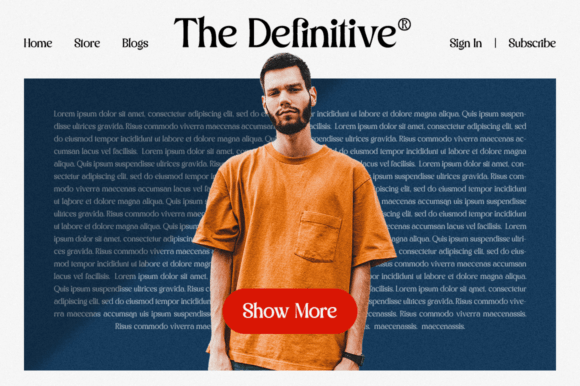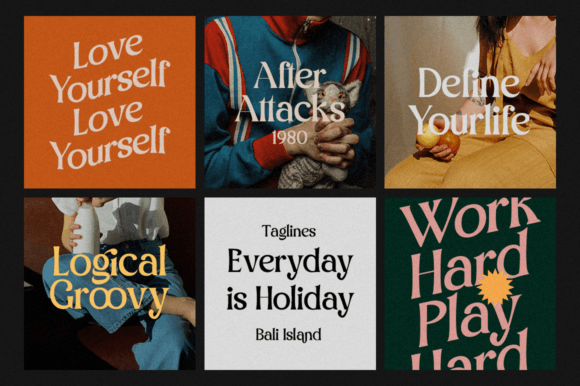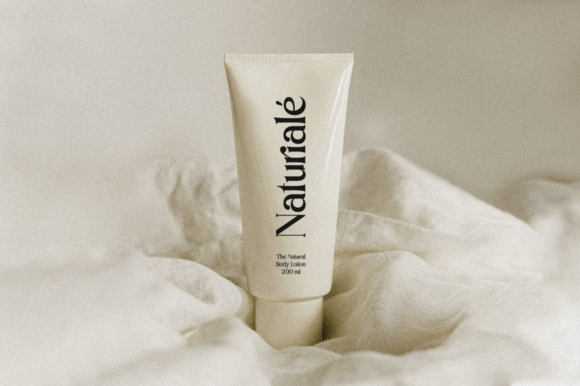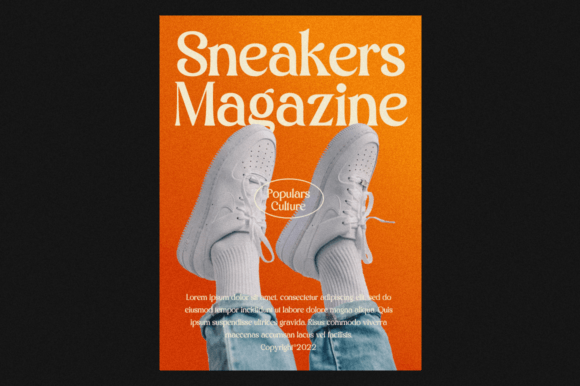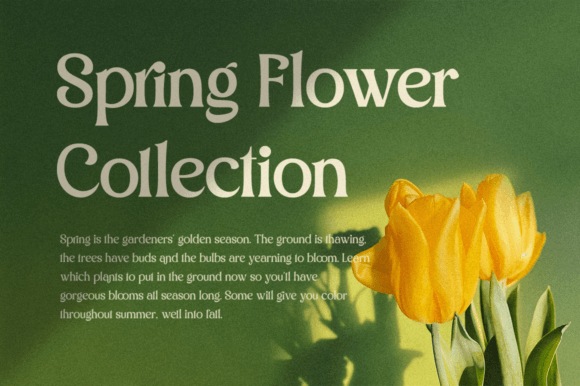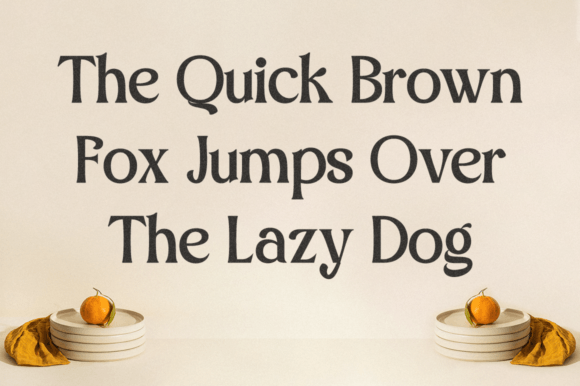
Introducing Argillites Font: The Perfect Blend of Boldness and Elegance
Are you tired of using the same old fonts in your designs? Look no further than Argillites Font, a bold serif font that is sure to become a true favorite among designers and crafters alike. With its casual charm and down-to-earth feel, Argillites is the perfect choice for anyone looking to add a touch of sophistication and versatility to their work.
The Story Behind Argillites Font
Argillites Font is a carefully handcrafted font that is designed to be both beautiful and functional. Its creator spent countless hours perfecting the font, ensuring that every detail, from the bold serifs to the elegant curves, was just right. The result is a font that is not only visually stunning but also incredibly readable, making it perfect for use in a wide range of applications, from body text to headings and titles.
What Makes Argillites Font So Special?
So, what sets Argillites Font apart from other fonts on the market? For starters, its bold serif design gives it a level of sophistication and elegance that is hard to find in other fonts. At the same time, its casual charm makes it feel approachable and down-to-earth, making it perfect for use in designs that need to feel friendly and inviting.
Key Features of Argillites Font
- Bold Serif Design: Argillites Font features a bold serif design that gives it a level of sophistication and elegance.
- Handcrafted: The font was carefully handcrafted to ensure that every detail is perfect.
- Readability: Argillites Font is incredibly readable, making it perfect for use in body text.
- Versatility: The font is versatile enough to be used in a wide range of applications, from headings and titles to body text.
Uses for Argillites Font
So, what can you use Argillites Font for? The possibilities are endless! Here are a few ideas to get you started:
- Headings and Titles: Use Argillites Font to add a touch of sophistication and elegance to your headings and titles.
- Body Text: The font’s readability makes it perfect for use in body text, making it a great choice for blogs, articles, and other written content.
- Branding: Use Argillites Font to create a consistent brand identity that feels friendly and approachable.
- Crafting: Whether you’re creating handmade cards, scrapbooking, or engaging in other crafts, Argillites Font is a great choice for adding a personal touch to your work.
Why Designers and Crafters Love Argillites Font
Designers and crafters alike love Argillites Font for its unique blend of boldness and elegance. Here are a few reasons why:
- Unique Design: Argillites Font has a unique design that sets it apart from other fonts on the market.
- Easy to Read: The font’s readability makes it easy to use in a wide range of applications.
- Versatile: Argillites Font is versatile enough to be used in everything from headings and titles to body text.
- Handcrafted: The font’s handcrafted design gives it a personal touch that is hard to find in other fonts.
In conclusion, Argillites Font is a bold serif font that is sure to become a true favorite among designers and crafters. With its casual charm, down-to-earth feel, and incredible versatility, it’s the perfect choice for anyone looking to add a touch of sophistication and elegance to their work. Whether you’re creating headings and titles, body text, or engaging in crafting, Argillites Font is a great choice. So why wait? Give Argillites Font a try today and see the difference it can make in your designs!